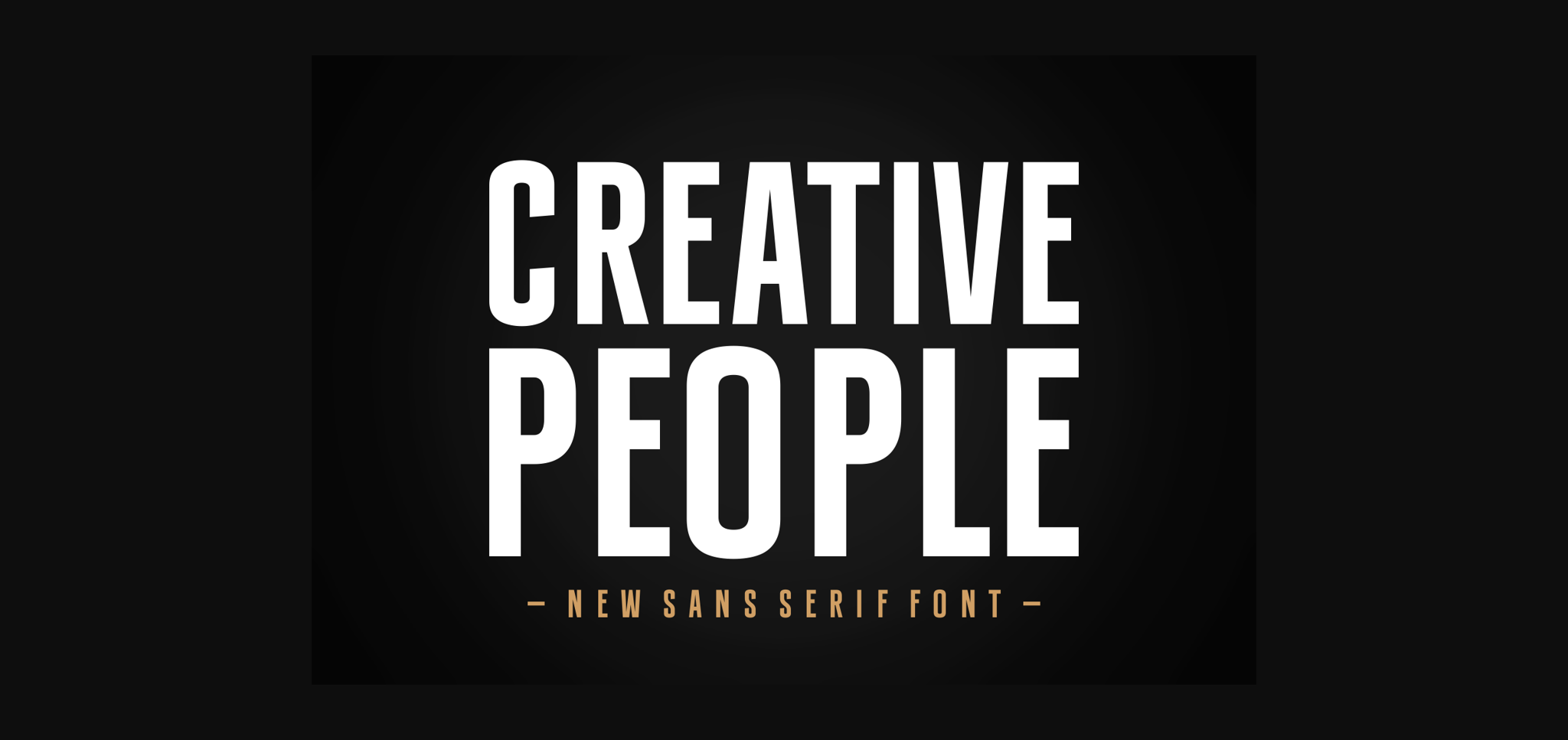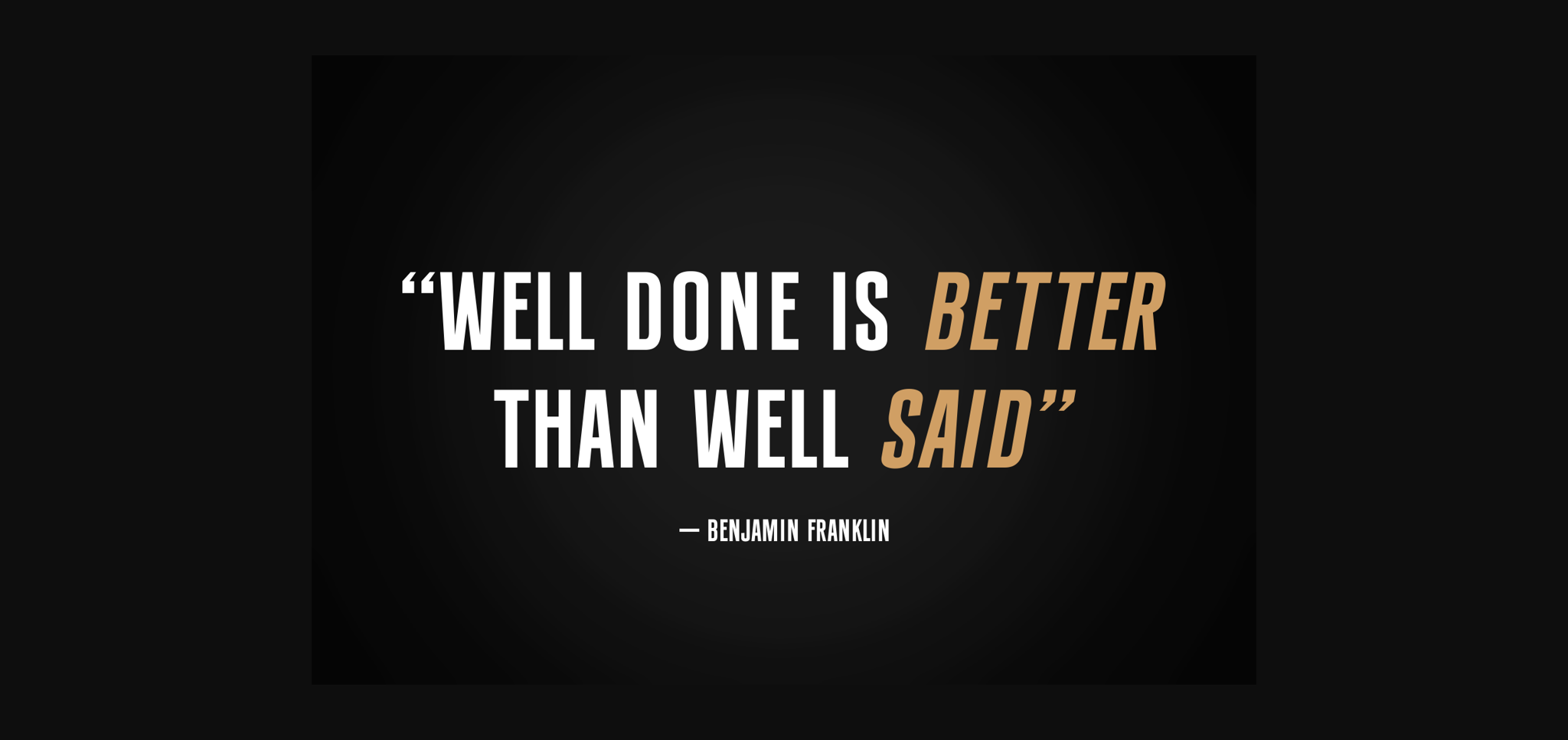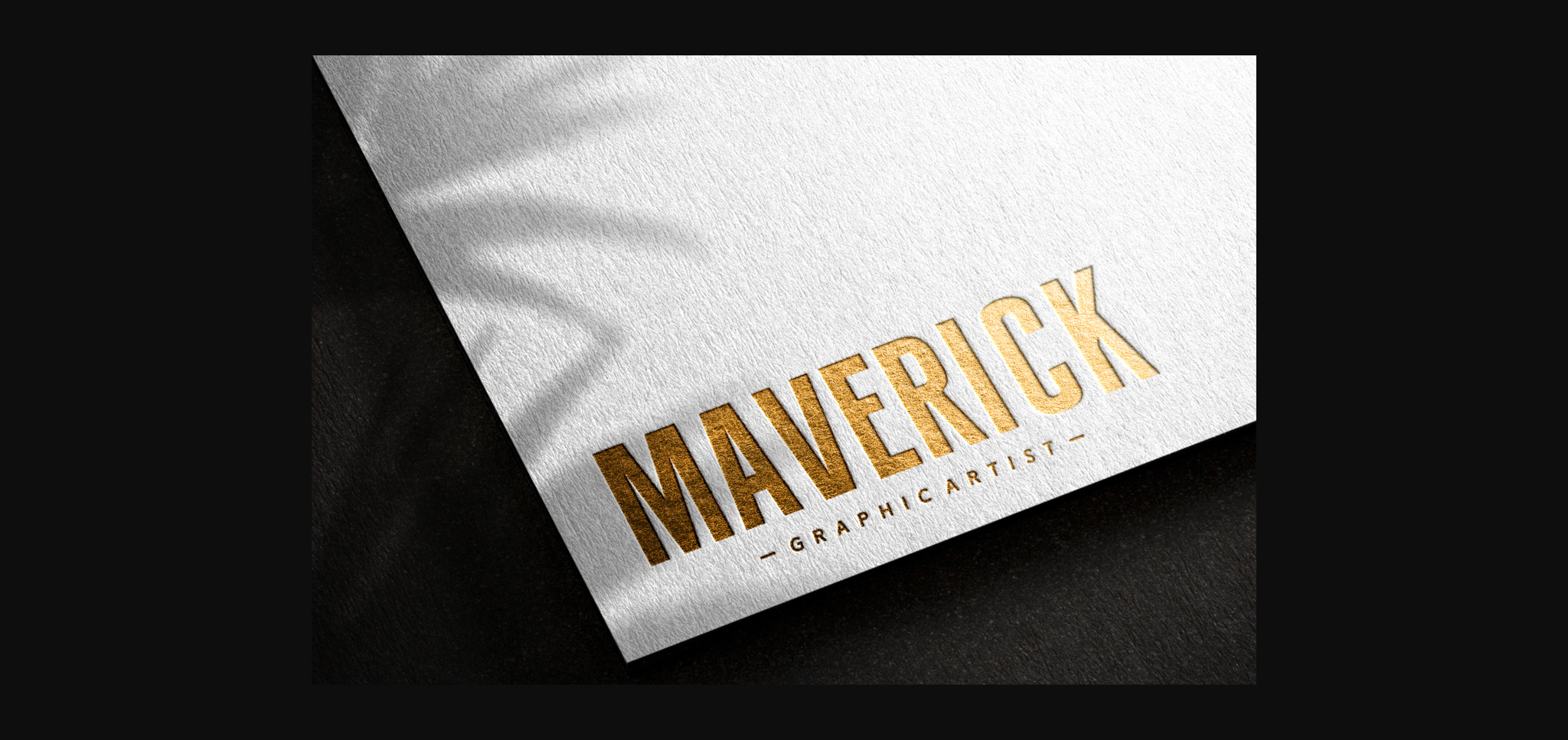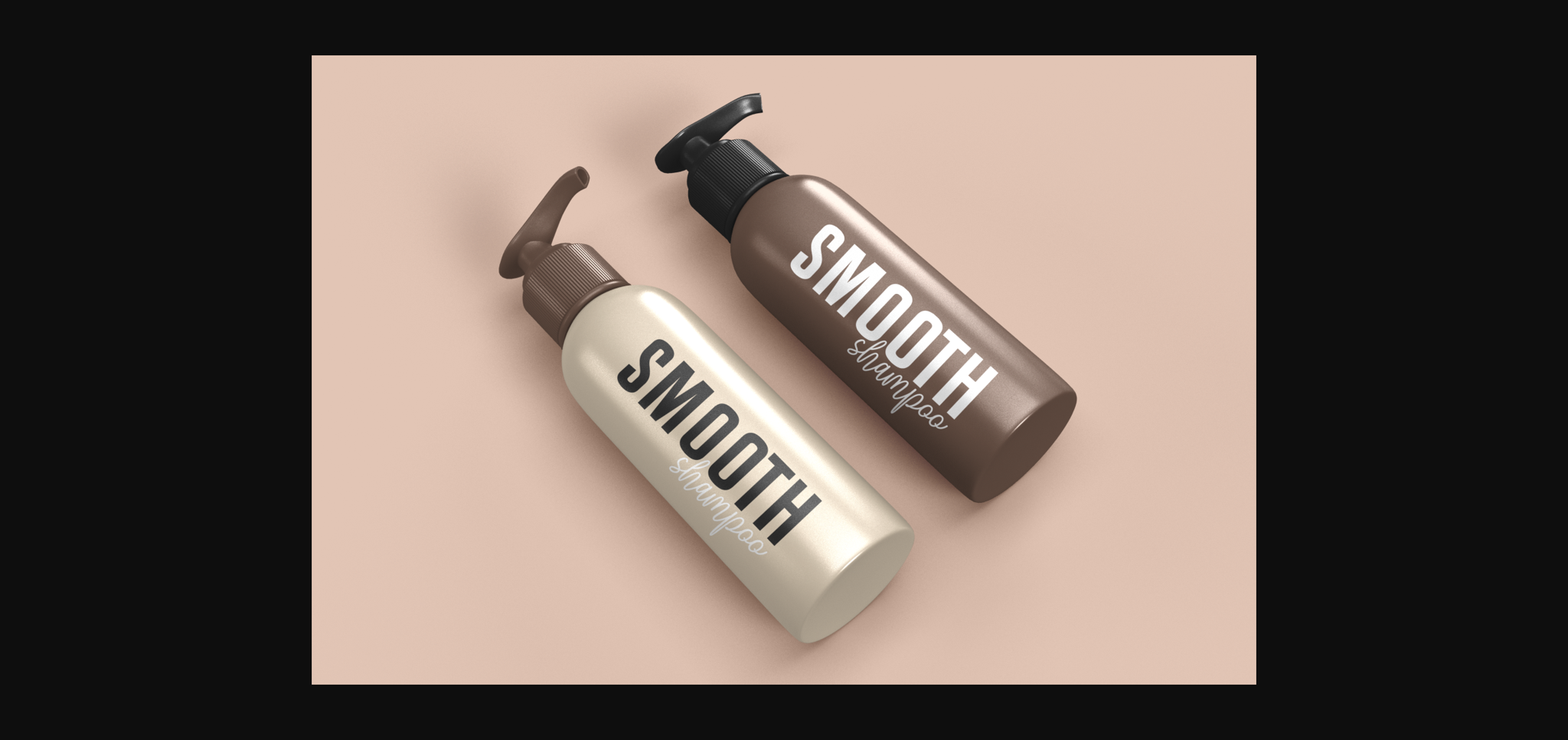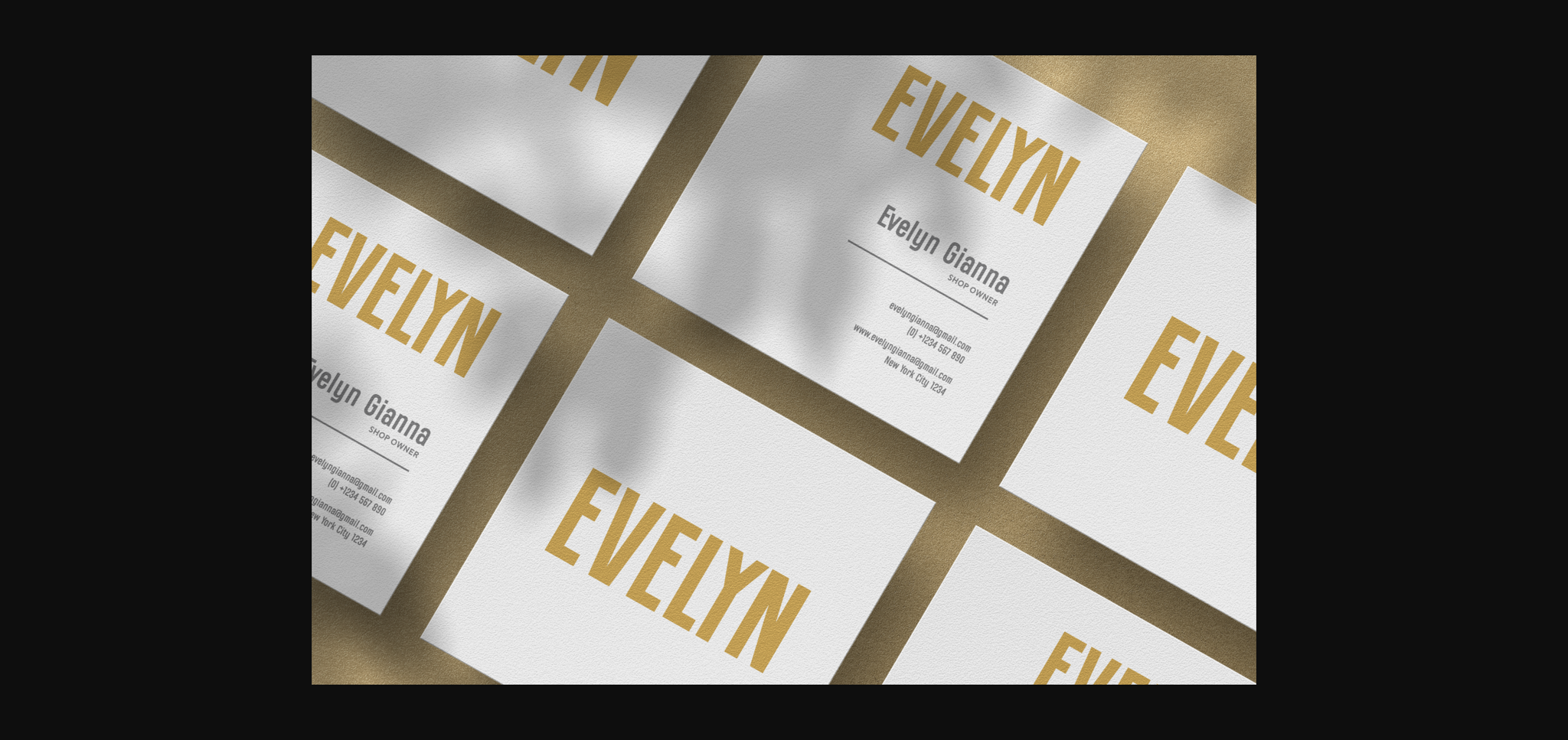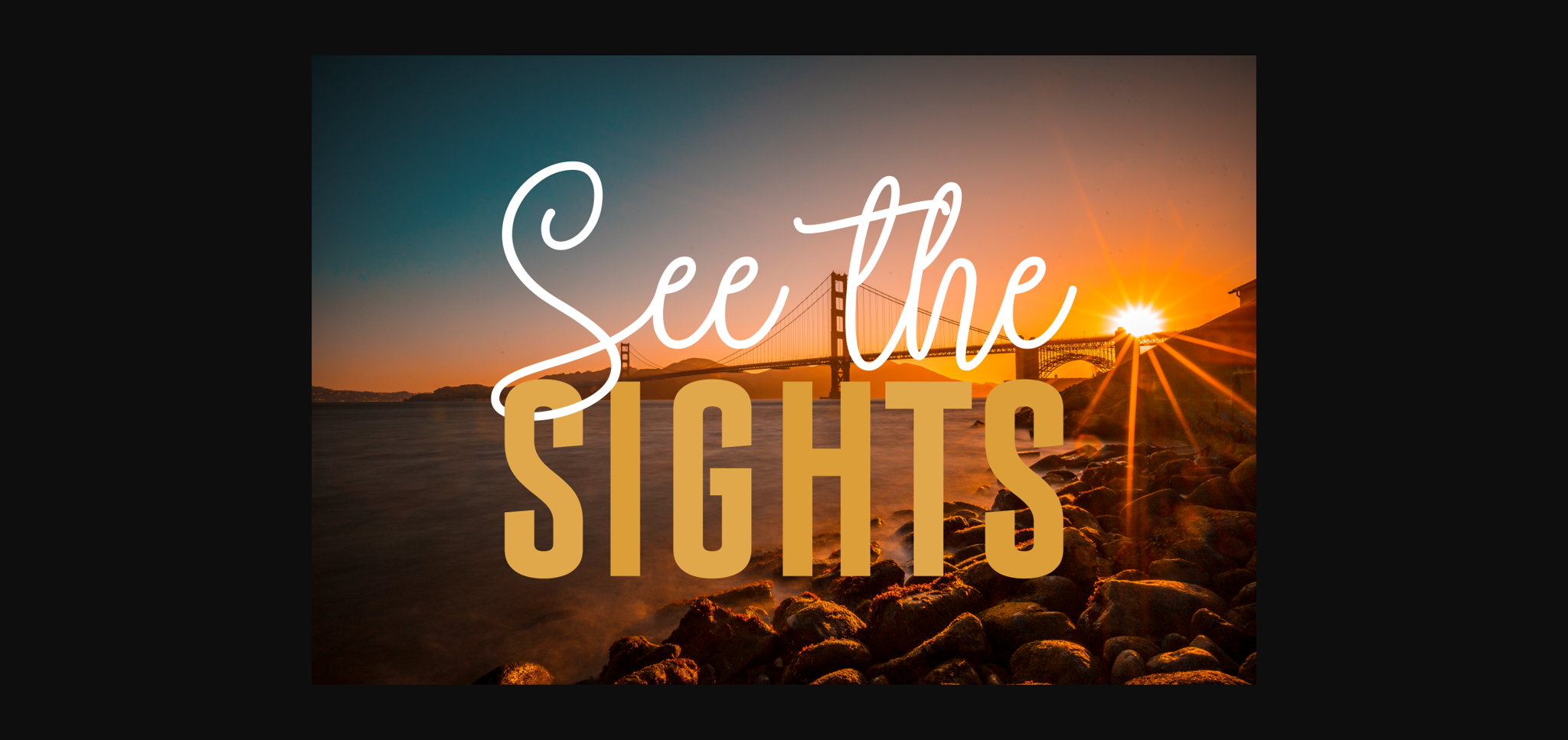
Creative People Font
About Creative People Font
Introducing “Creative People” – a sleek and modern sans-serif font designed for versatility and visual impact. With clean lines and a contemporary aesthetic, Creative People is perfect for a wide range of projects, from professional presentations to creative endeavors. Its simplicity enhances readability, making it an ideal choice for both digital and print applications. Elevate your design with the crisp and stylish look of Creative People, a font that embodies the essence of innovation and clarity.